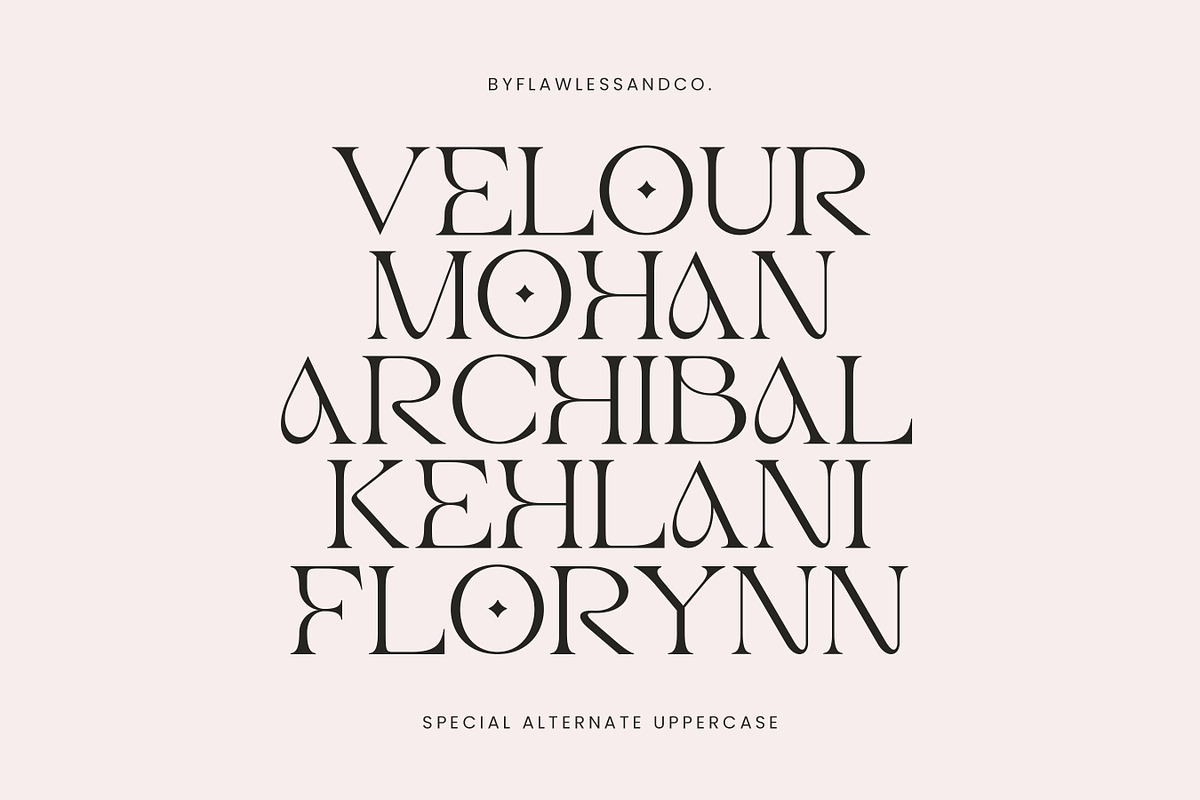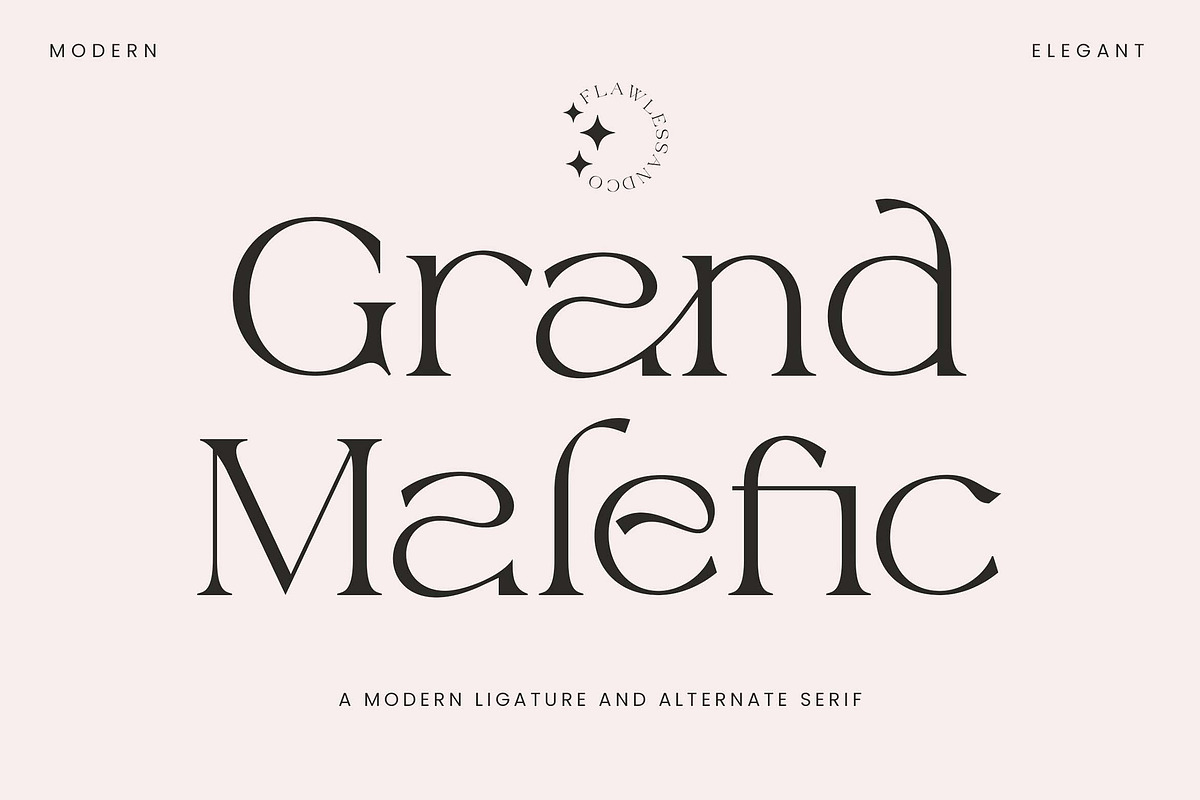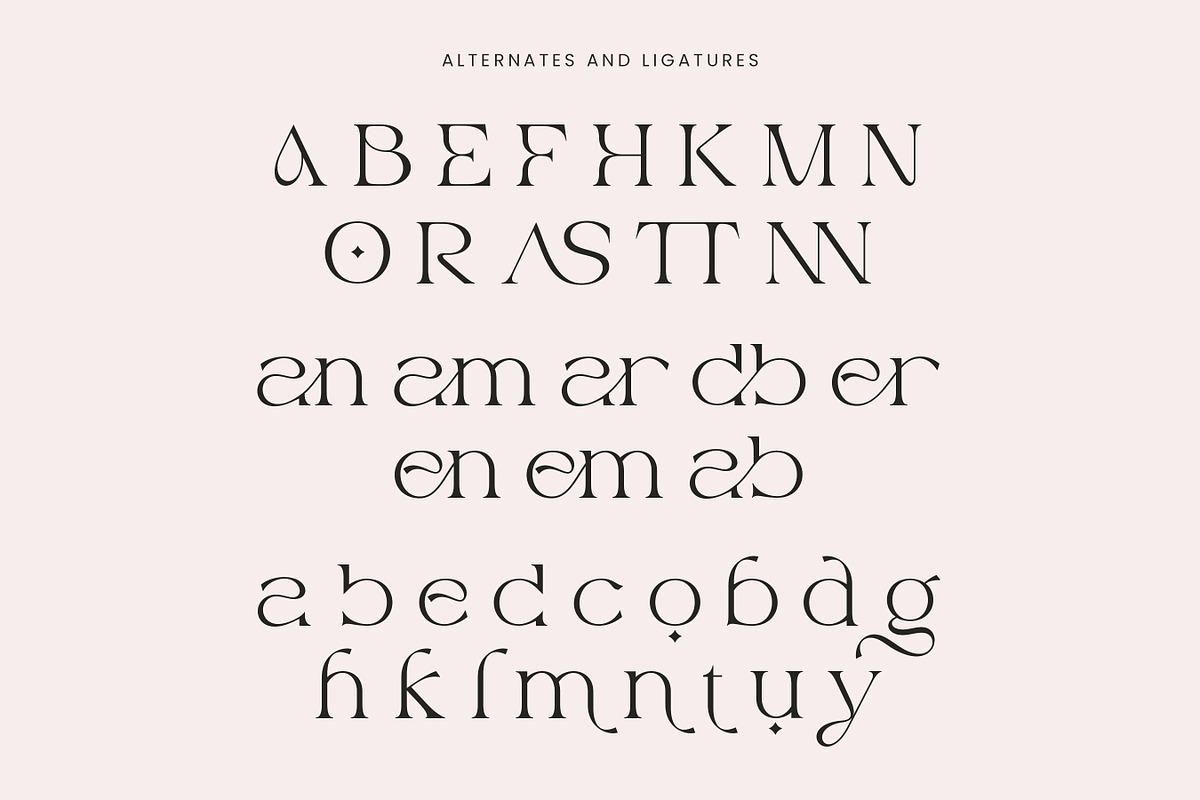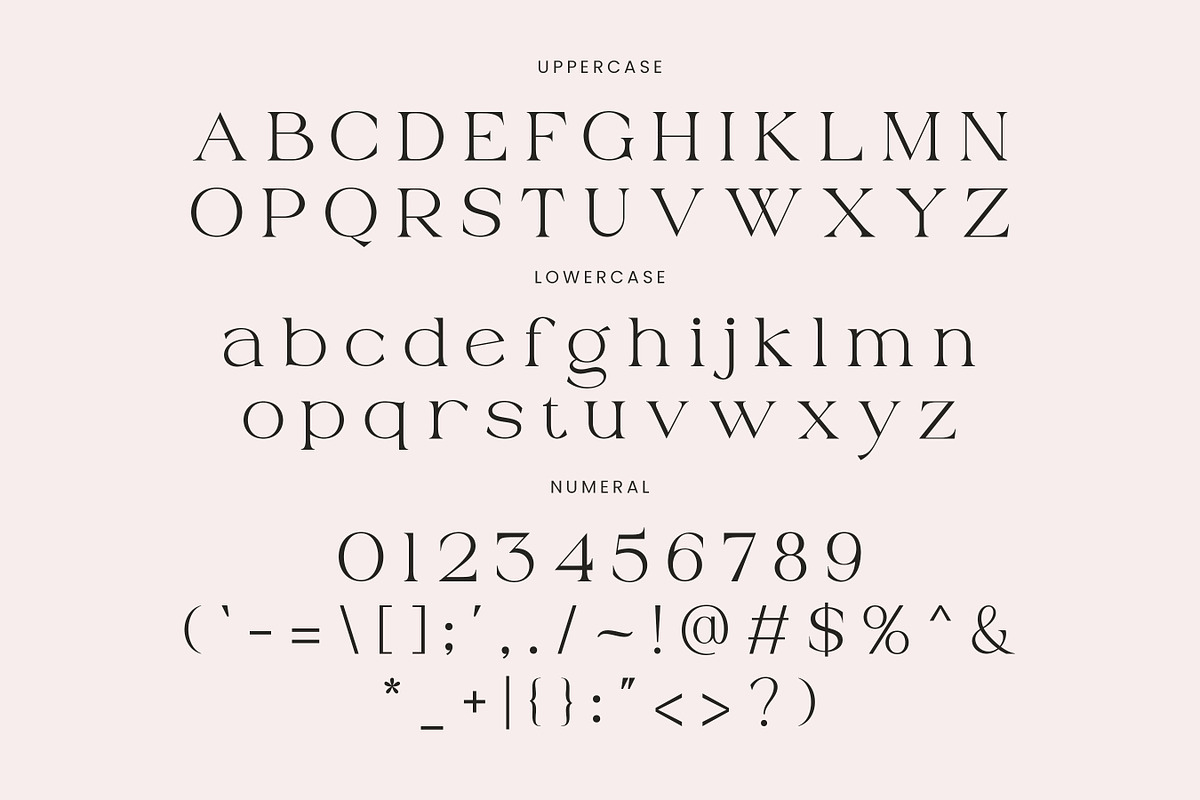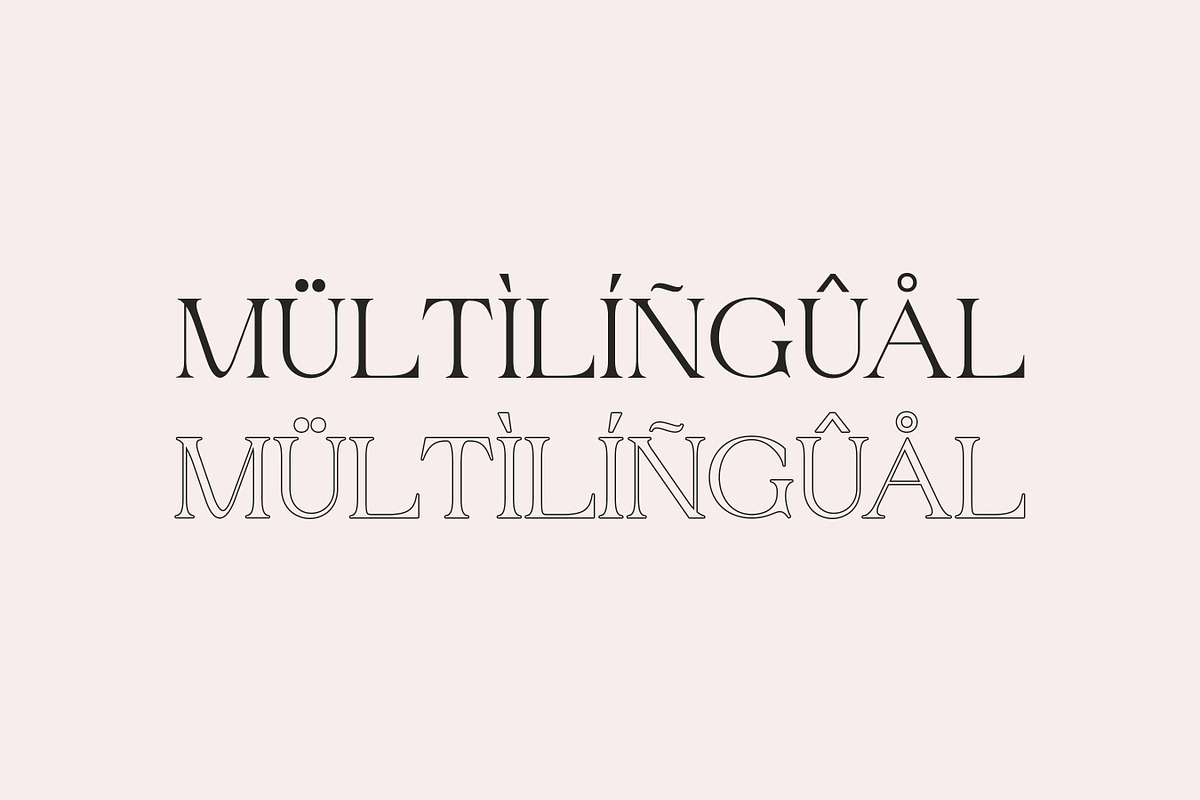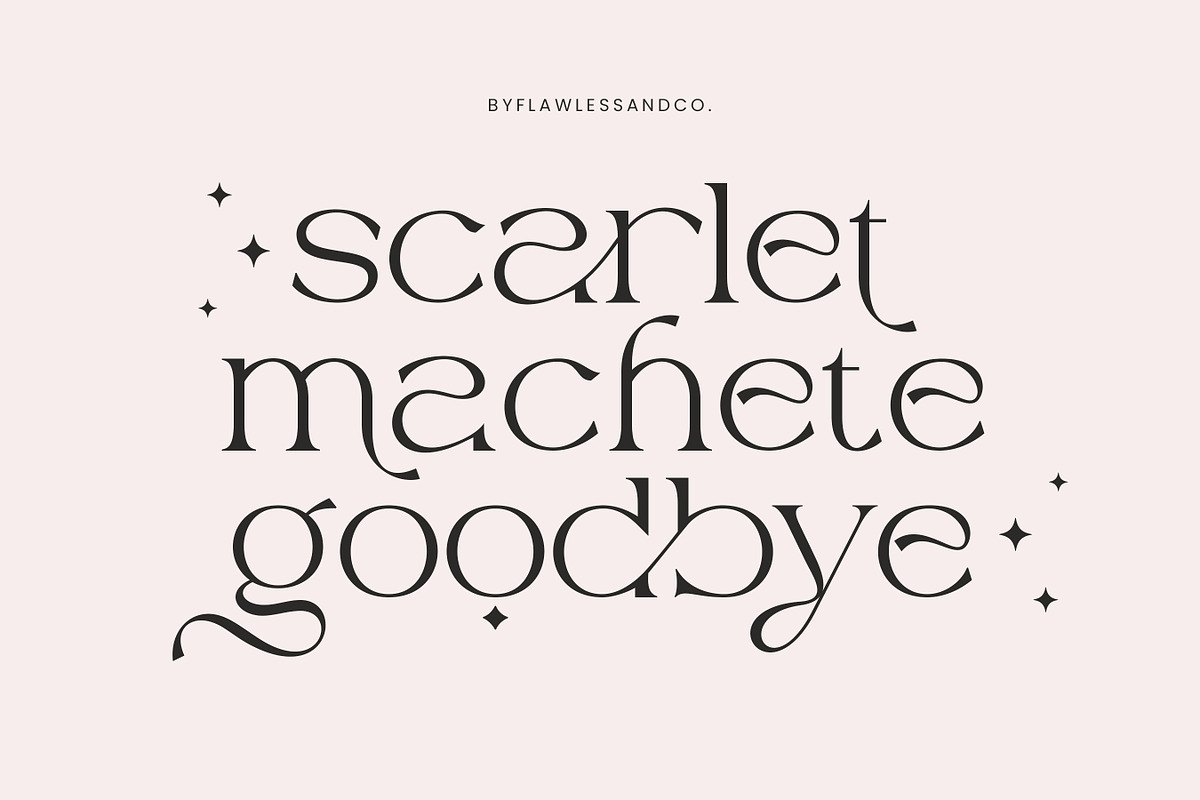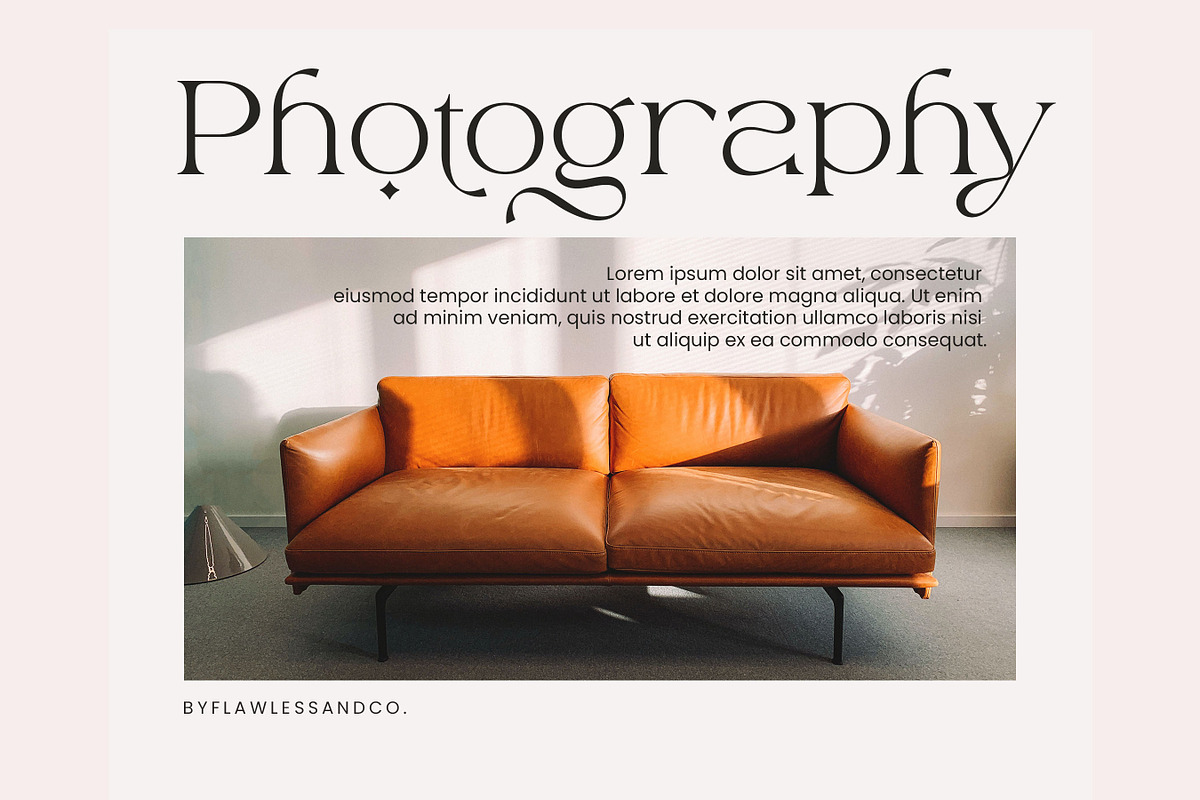
Grand Malefic
introducing our new Momentic Yesterday Font Duo, Modern Font with Elegant Style is perfect for branding, logos, invitation, master heads, and more.
Multilingual Uppercase alphabet A-Z Lowercase alphabet a-z Alternate Character Numbers 0-9 Some punctuation